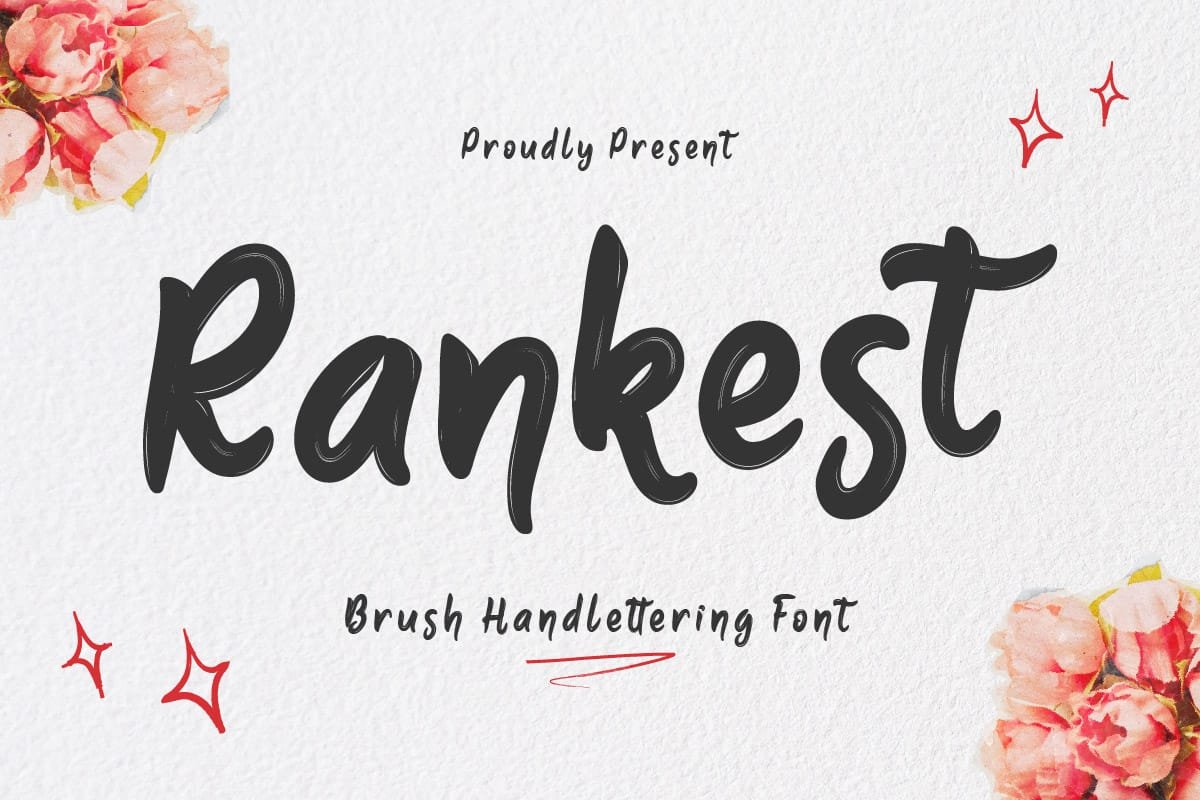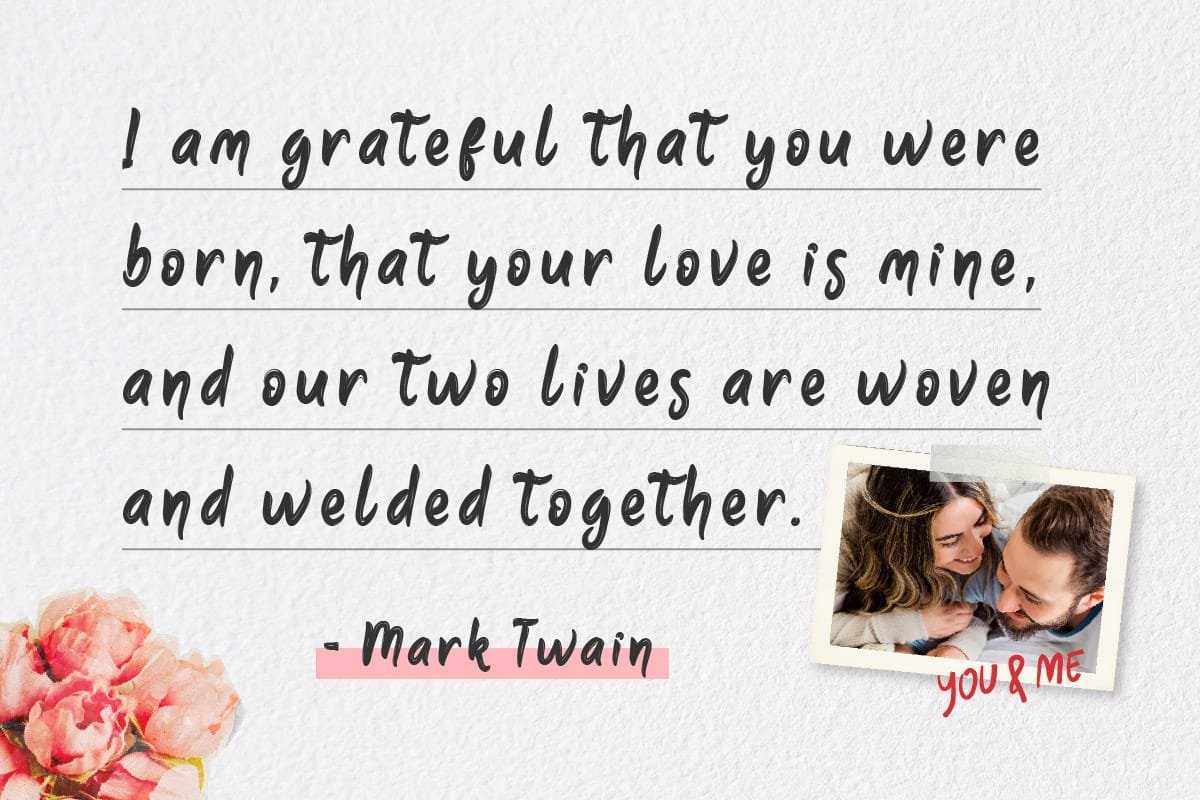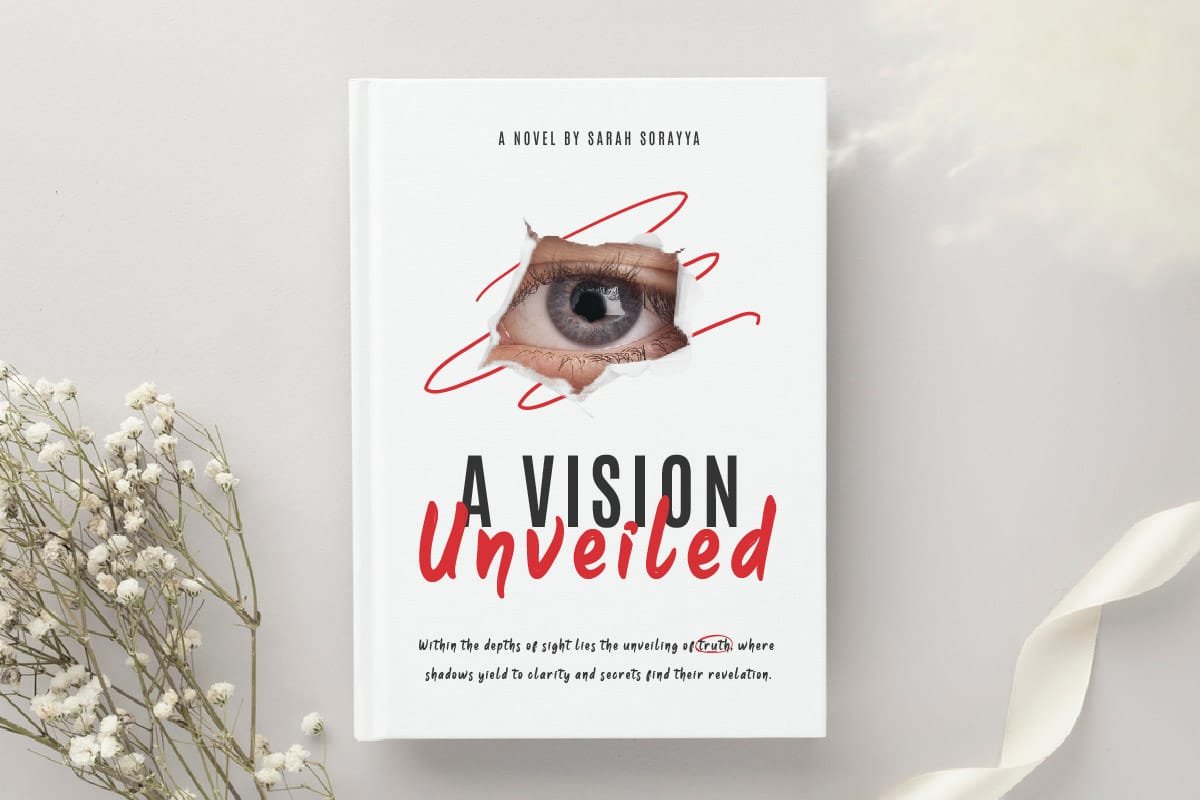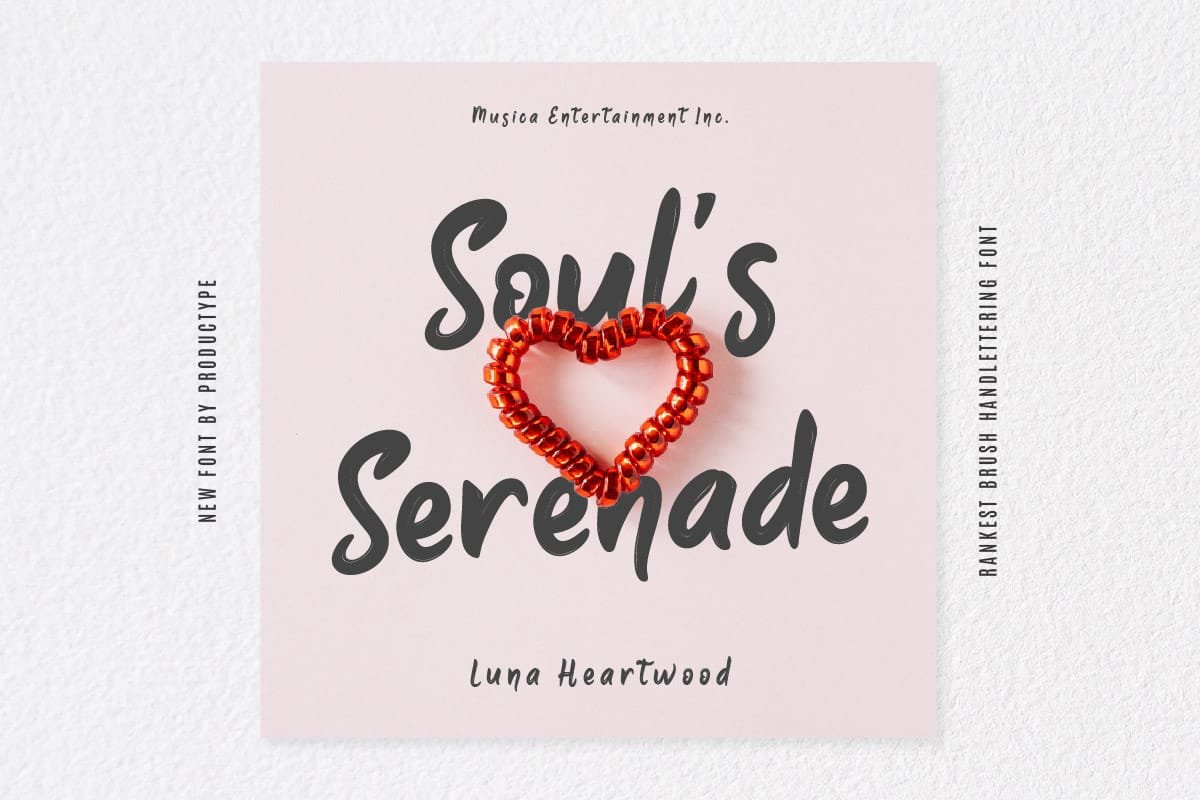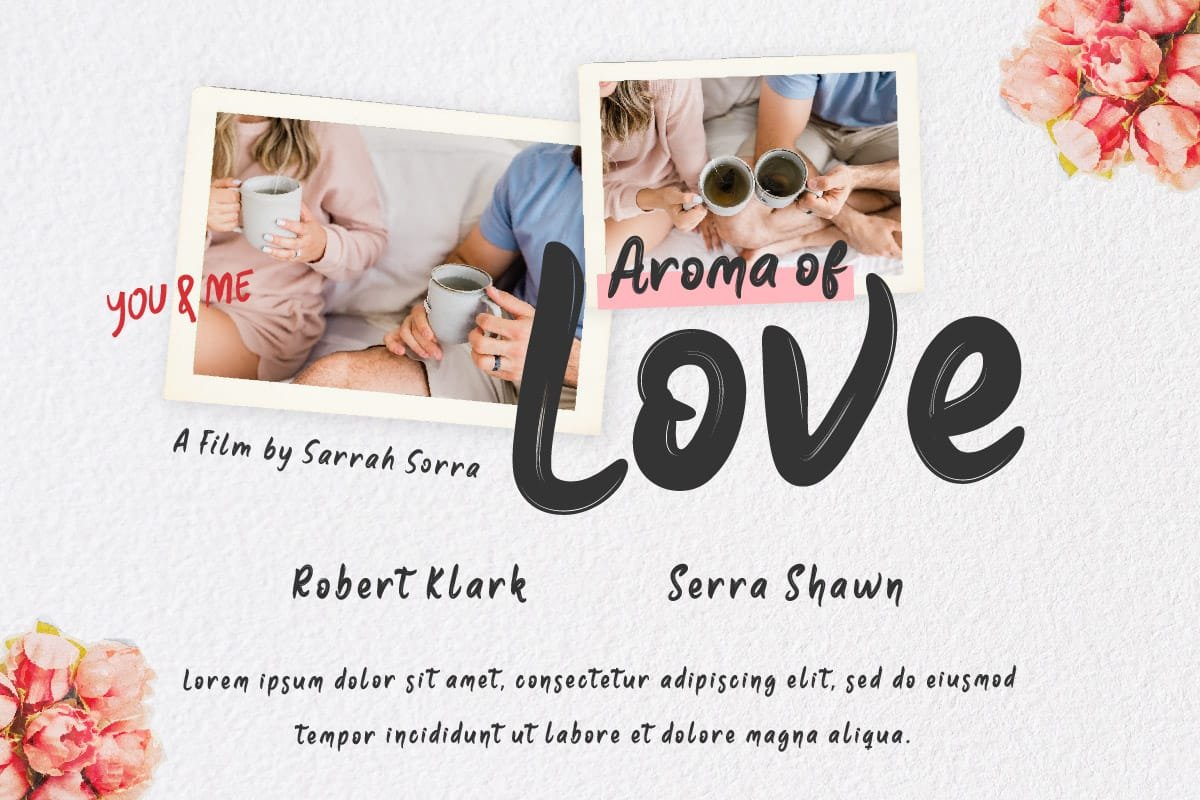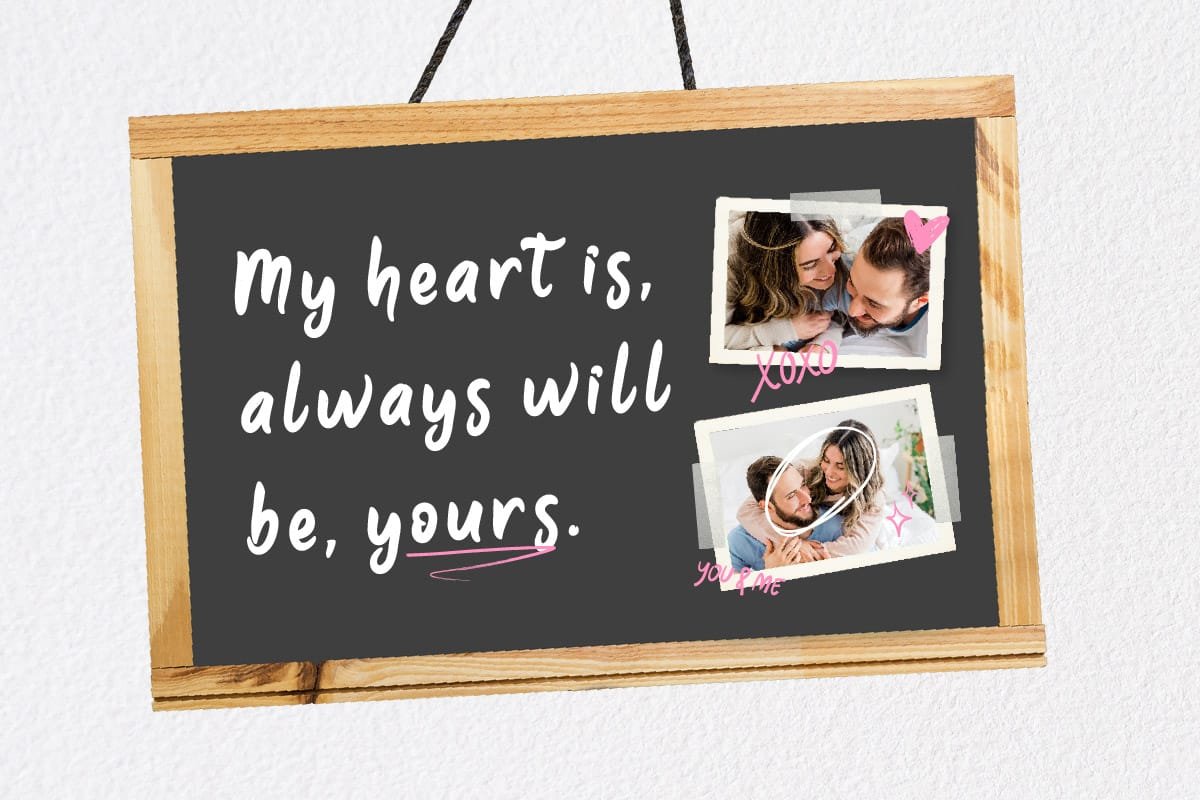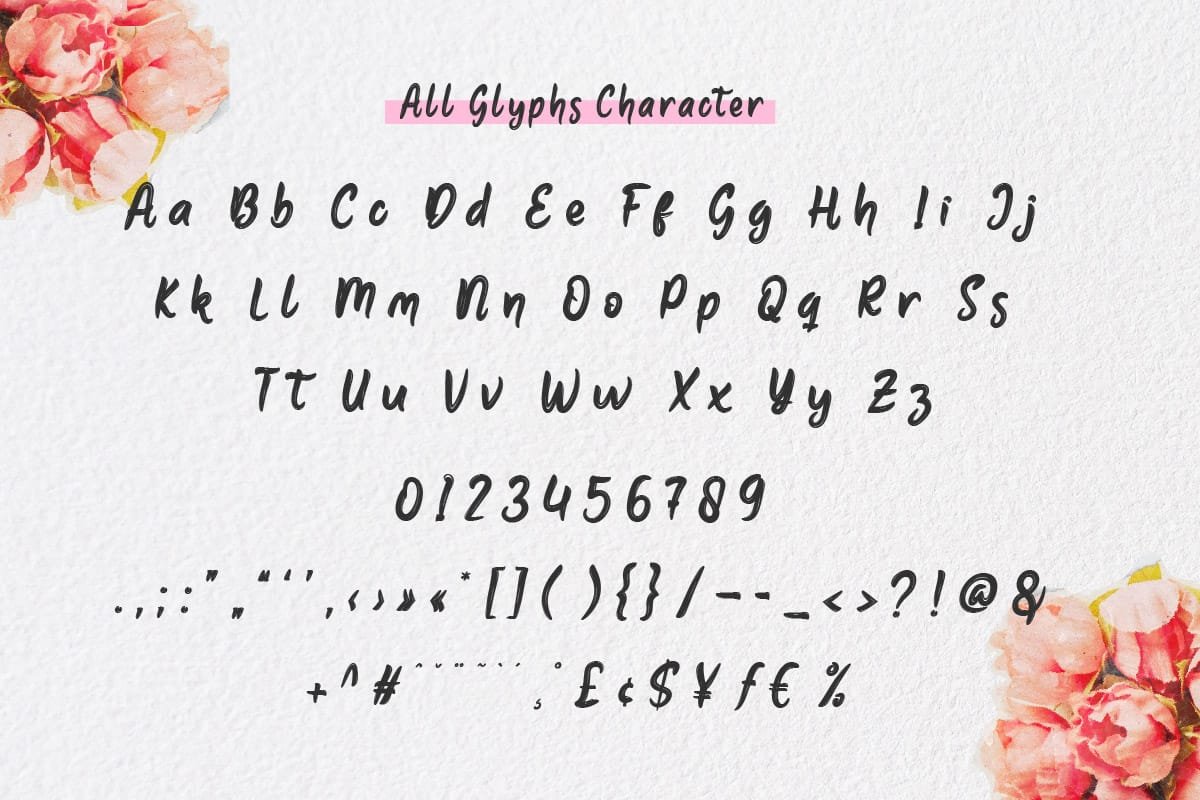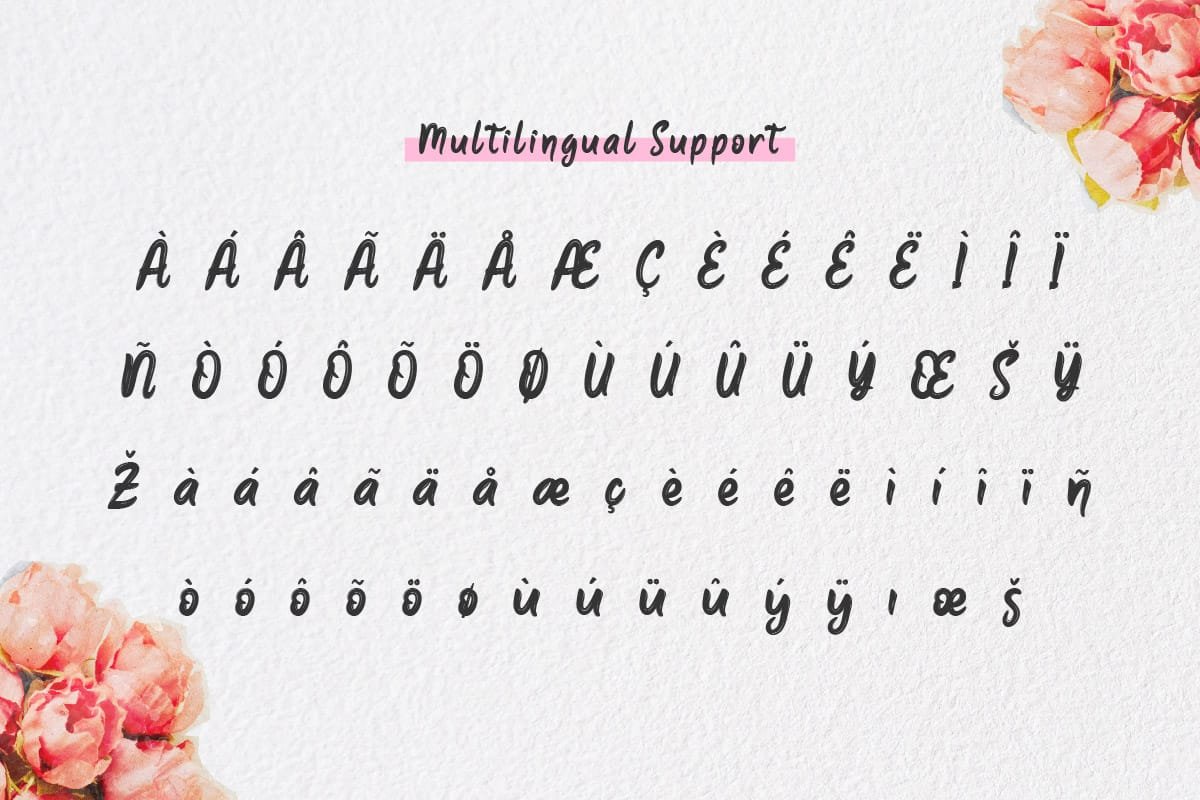
5. Rankest – Brush Handwritten Font
Rankest – Brush Handwritten Font
Rankest is a brush handwritten font that combines style and spontaneity. Its unique, free-flowing characters are perfect for designs that require a touch of creativity and individuality. From eye-catching headlines to personal signatures, Rankest adds a touch of personality that makes your designs stand out.